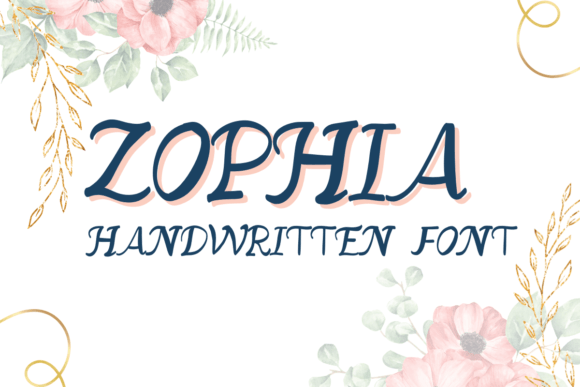
Introducing Zophia Font - The Ultimate Script Font for Reading and Beyond!
In the world of fonts, Zophia Font stands as a beacon of elegance and readability. This beautiful script font, meticulously crafted by Sirinart, is not just another font; it's an experience that captivates your senses and ignites your creativity. With its enchanting curves and graceful strokes, Zophia Font is a feast for the eyes, turning every word into a work of art.
Dive into the world of Zophia Font and discover its allure. Its friendly and inviting personality makes it the perfect choice for taking notes, pouring your heart out in a diary, or creating heartfelt greeting cards. Its versatility extends far beyond personal use. Unleash your creativity and utilize Zophia Font to design captivating banners, eye-catching content, unique mugs, personalized cards, stylish shirts, elegant stationery, and engaging social media posts. The possibilities are limitless!
Embrace the Beauty of Zophia Font:
- Experience the Joy of Reading: Zophia Font's meticulously crafted characters ensure effortless reading, transforming your digital or printed text into a visual delight. Its carefully designed letterforms dance across the page, inviting you to immerse yourself in the written word.
- Unleash Your Creativity: Zophia Font is more than just a reading font; it's an artistic playground. Its flowing script style adds a touch of elegance to your designs, whether you're creating logos, branding materials, or social media graphics. Let your imagination run wild and let Zophia Font elevate your designs to new heights.
- Express Yourself Uniquely: In a world of uniformity, Zophia Font empowers you to express your individuality. Its charming handwritten style adds a personal touch to your projects, making them stand out from the crowd. Whether you're a blogger, an artist, or a business owner, Zophia Font will help you convey your message with style and authenticity.